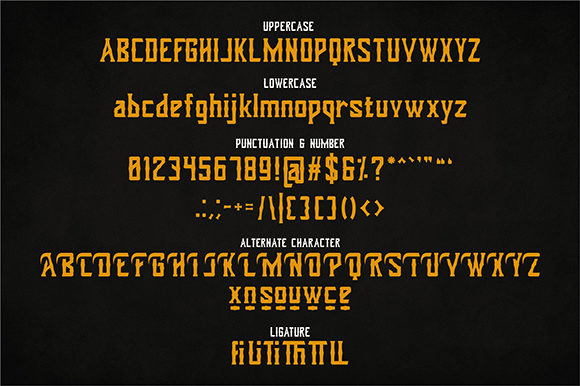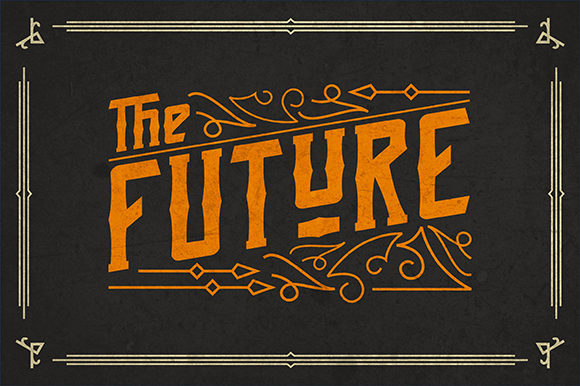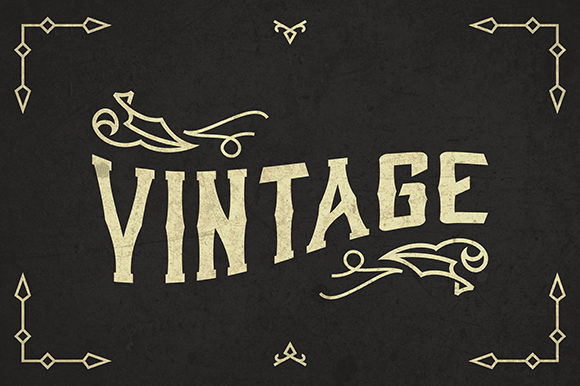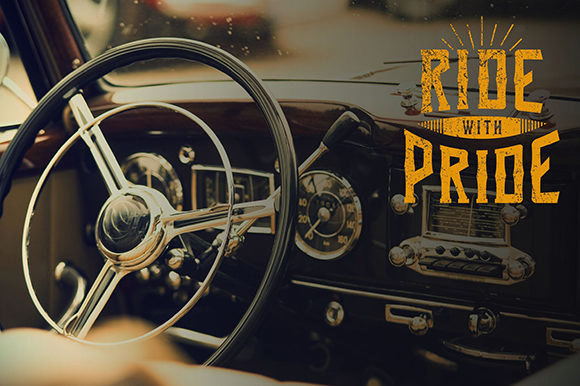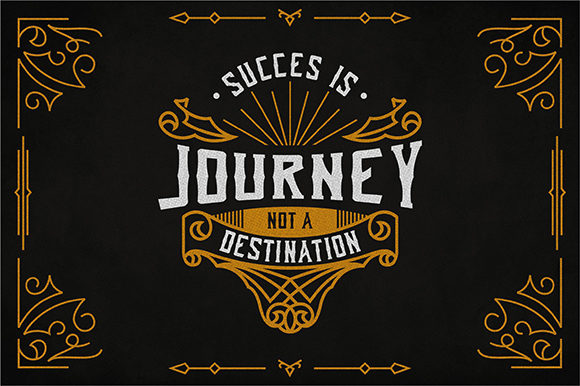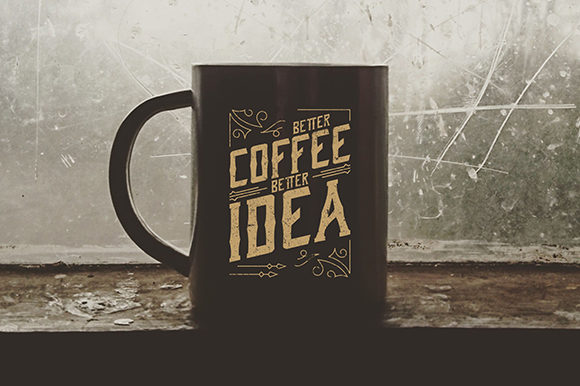
Dohong Kaliba Font: A Timeless Classic for Creative Designs
In the world of typography, few fonts have managed to capture the essence of classic, vintage style while still being unique and striking. The Dohong Kaliba font is one such gem that has been making waves in the design community. Born from an original and hand-drawn style, this font is perfect for designers and crafters looking to add a touch of elegance and sophistication to their work.
The Origins of Dohong Kaliba Font
The Dohong Kaliba font is a result of meticulous craftsmanship, with each letter carefully hand-drawn to achieve a distinctive look. This process ensures that the font has a personal touch, setting it apart from machine-generated fonts. The result is a typeface that exudes warmth, character, and a sense of history, making it ideal for projects that require a classic, vintage aesthetic.
Key Features of Dohong Kaliba Font
- Classic and Vintage Style: The Dohong Kaliba font embodies a timeless elegance that is reminiscent of bygone eras. Its classic style ensures that it can be used across various design projects without looking out of place.
- Unique and Striking: What sets Dohong Kaliba apart is its unique and striking appearance. In a sea of generic fonts, this one stands out, making it perfect for designers looking to create a lasting impression.
- Versatility: The font’s versatility is one of its strongest assets. It can be used for a wide range of applications, from logos and branding materials to t-shirts, prints, and business cards.
- Hand-drawn Authenticity: The hand-drawn nature of Dohong Kaliba gives it an authentic, artisanal feel that is hard to replicate with digital fonts.
Applications of Dohong Kaliba Font
The Dohong Kaliba font’s versatility makes it suitable for various design projects. Here are some of the ways designers and crafters can utilize this beautiful font:
- Logos and Branding Materials: Create a memorable brand identity with Dohong Kaliba. Its classic yet unique style ensures that your logo stands out and leaves a lasting impression on your audience.
- T-Shirts and Apparel: Add a touch of vintage charm to your t-shirt designs and other apparel. The Dohong Kaliba font’s striking appearance is sure to attract attention.
- Prints and Posters: Whether you’re designing art prints, posters, or flyers, Dohong Kaliba can add a touch of elegance and sophistication to your work.
- Business Cards: Stand out in the professional world with beautifully designed business cards featuring the Dohong Kaliba font. Its classic style conveys professionalism and attention to detail.
Tips for Using Dohong Kaliba Font Effectively
To make the most of the Dohong Kaliba font, consider the following tips:
- Pair with Complementary Fonts: While Dohong Kaliba is stunning on its own, pairing it with complementary fonts can enhance its beauty. Choose fonts that complement its classic style without overpowering it.
- Experiment with Colors: The Dohong Kaliba font works well with a variety of colors. Experiment with different color schemes to find the one that best suits your design.
- Pay Attention to Spacing: Ensure that the letters have adequate spacing to maintain the font’s readability and aesthetic appeal.
The Dohong Kaliba font is a valuable addition to any designer’s toolkit. Its classic, vintage style combined with its unique and striking appearance makes it perfect for a wide range of design projects. Whether you’re creating logos, branding materials, t-shirts, prints, or business cards, Dohong Kaliba can help you achieve a timeless look that sets you apart. With its hand-drawn authenticity and versatility, this font is sure to inspire creativity and elevate your designs to new heights.